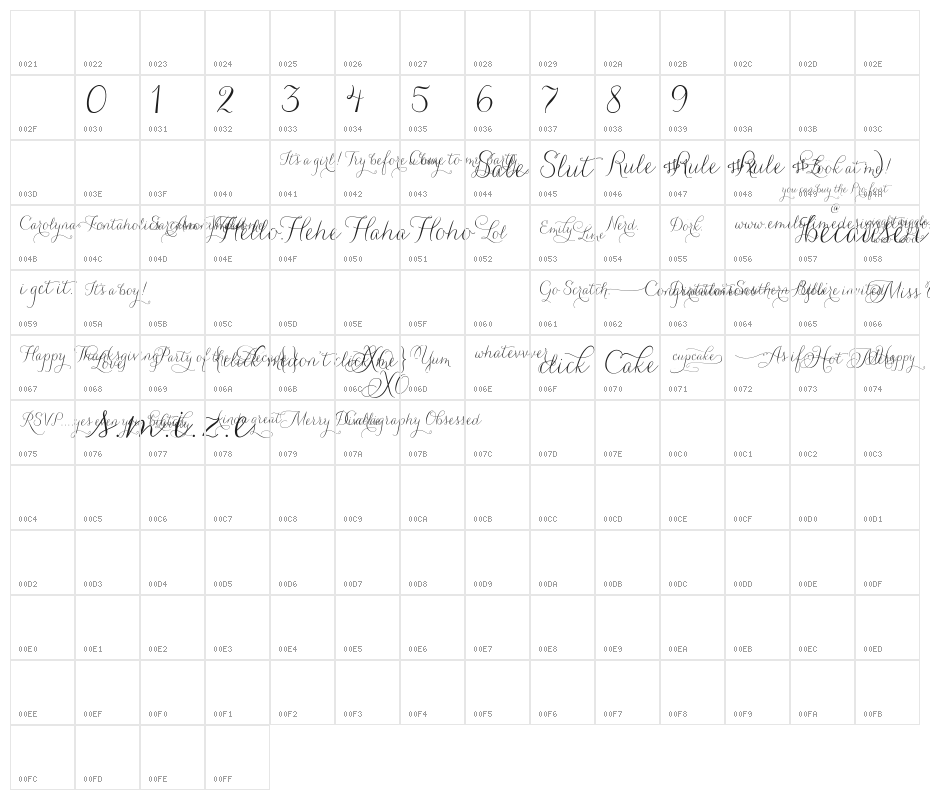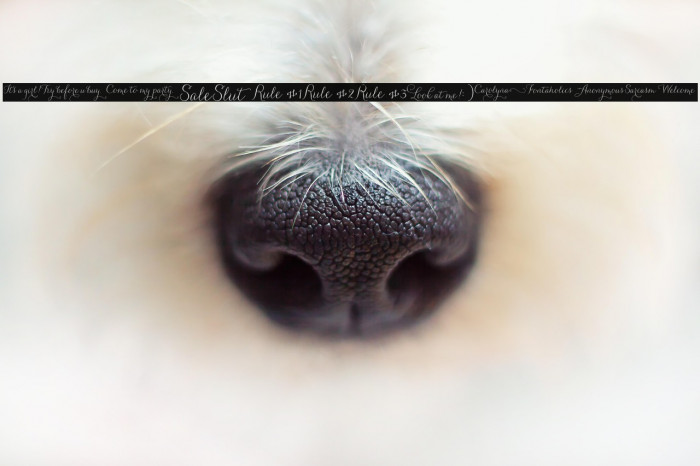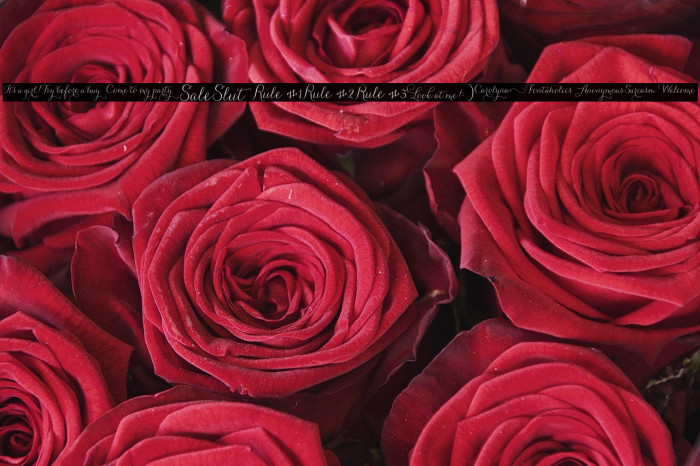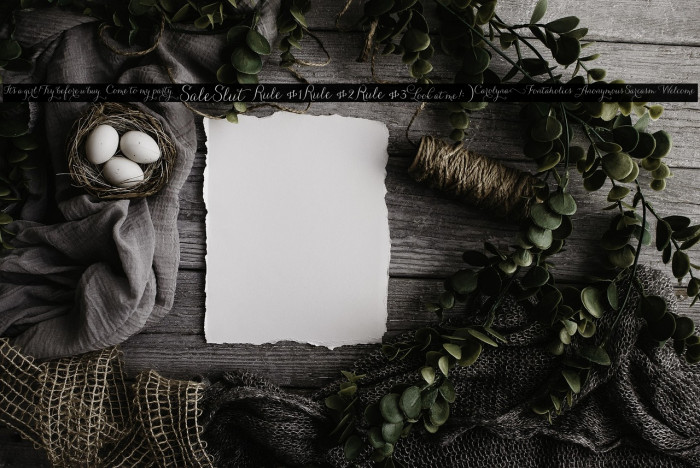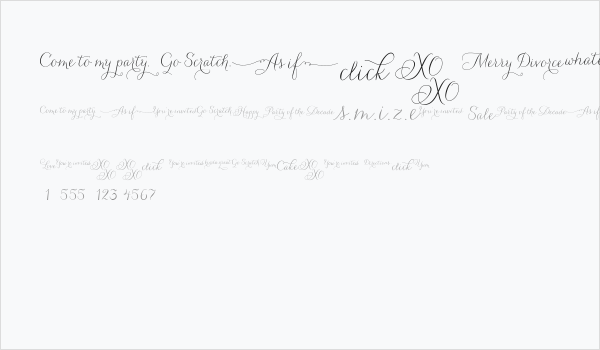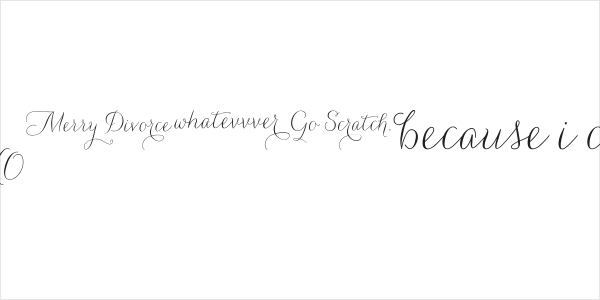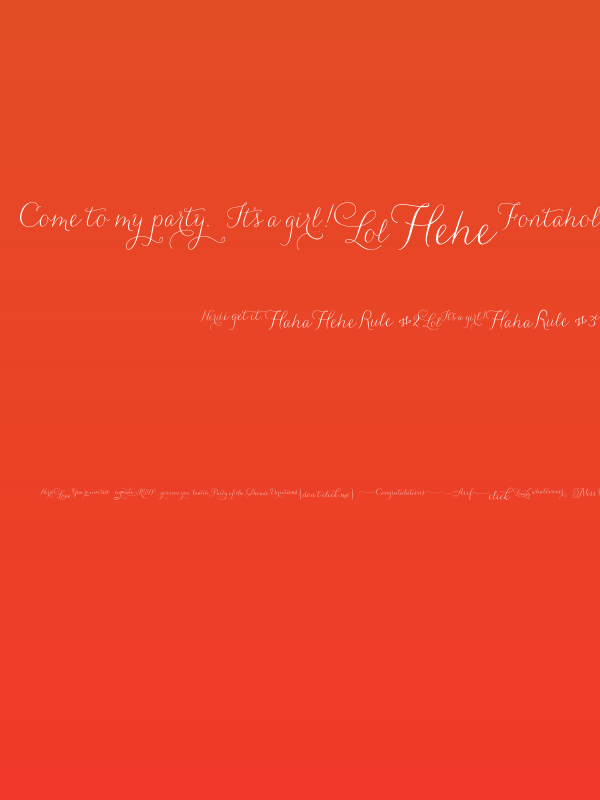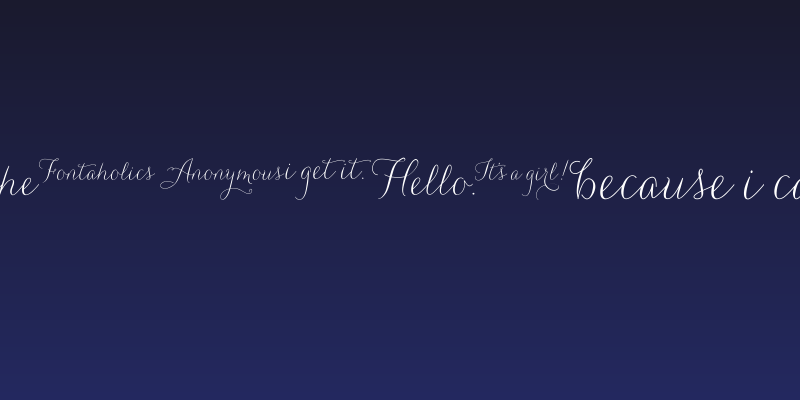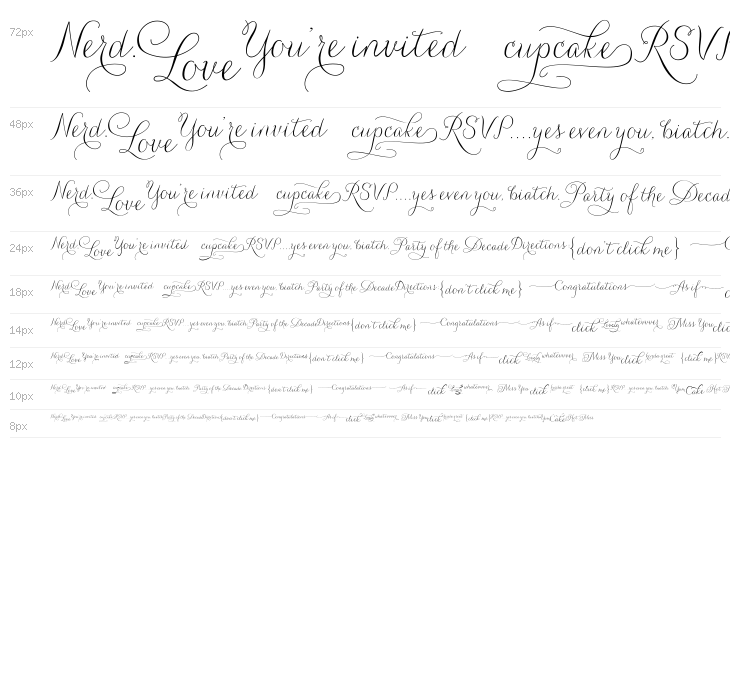
CarolynaWords Font
CarolynaWords Description
This elegant script font exudes a sense of sophistication and fluidity, characterized by its flowing, cursive letterforms. The font features delicate, sweeping strokes and a graceful, handwritten style that mimics the fluidity of calligraphy. Its characters are intricately designed, with varying stroke widths that add a touch of dynamism and elegance. The uppercase letters are particularly ornate, with flourishes that enhance their decorative appeal, while the lowercase letters maintain a consistent, flowing rhythm. The numerals are stylishly crafted, maintaining the overall aesthetic of the script. This font is perfect for projects that require a touch of elegance and sophistication, such as wedding invitations, formal event programs, and upscale branding materials.
| Overall Style | Elegant, Decorative |
| Use Case | Invitations, Branding, Stationery |
| Proposed Projects | Ideal for wedding invitations, formal event programs, upscale branding, and elegant stationery. |